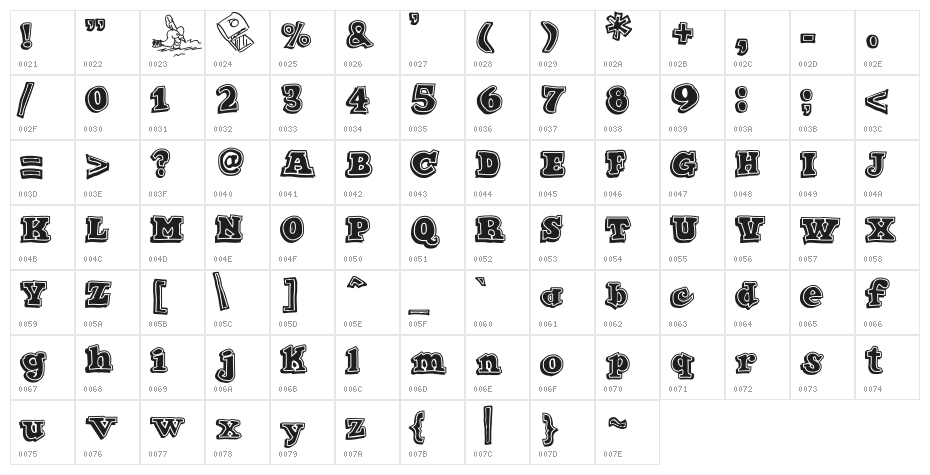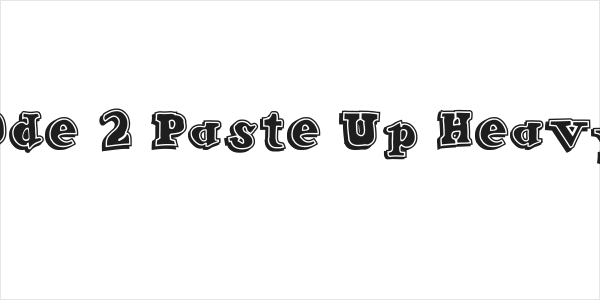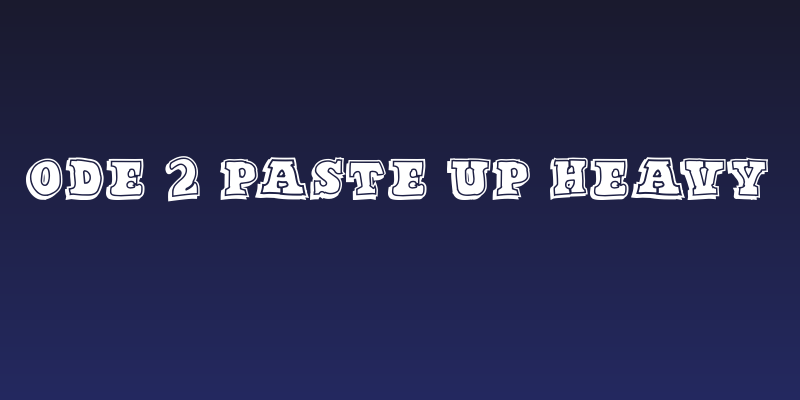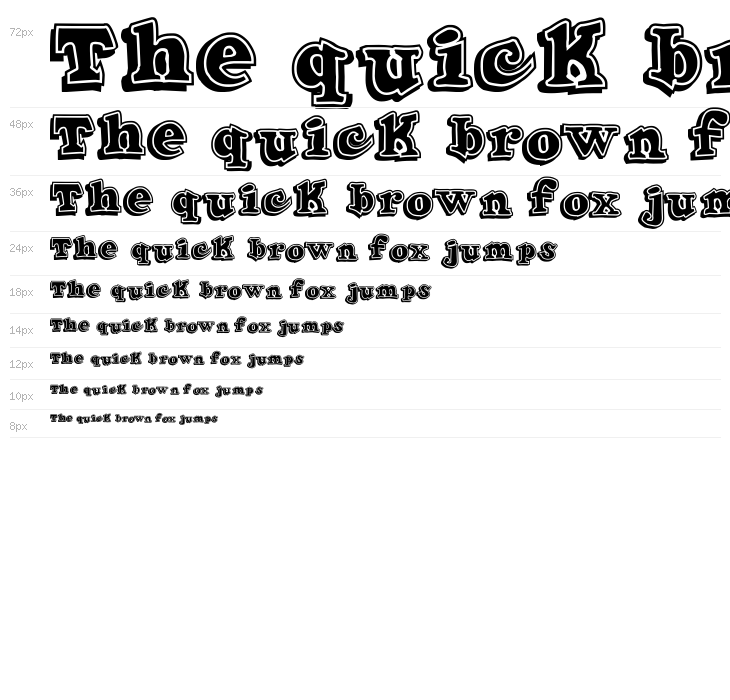
Ode 2 Paste Up Heavy Font
Ode 2 Paste Up Heavy Description
This font features a bold and playful style with a distinct outline that gives each character a three-dimensional effect. The letters are chunky and have a slightly irregular shape, adding to their whimsical and fun appearance. The uppercase and lowercase letters maintain a consistent style, with the lowercase being slightly smaller but equally bold. Numbers and special characters follow the same design principles, ensuring a cohesive look across all text elements. The font's unique style makes it stand out, perfect for projects that require a touch of creativity and flair.
| Proposed Projects | Ideal for posters, children's books, comic strips, and playful branding projects. |